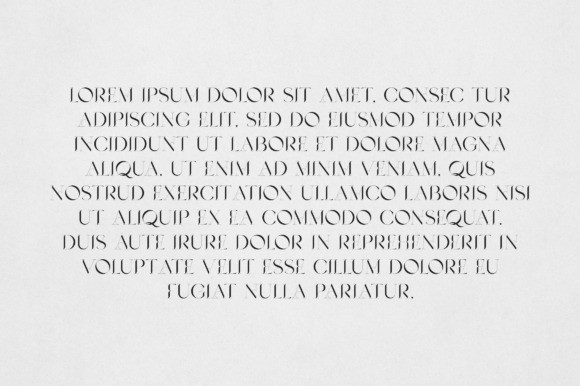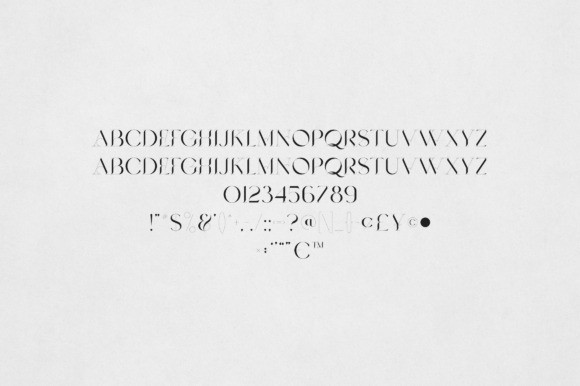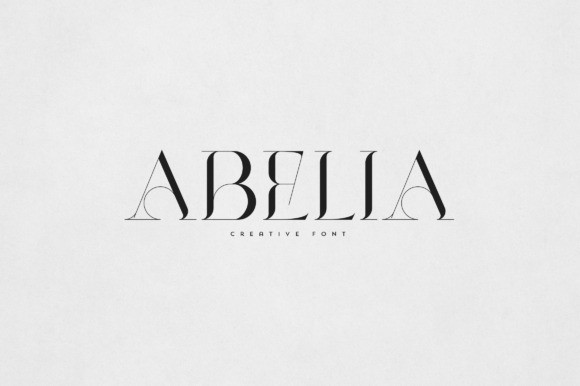
Abelia Font
Abelia Font is an elegant and versatile font that will make your typography truly unique! It will enchant every logo, branding, headline, or plain text!